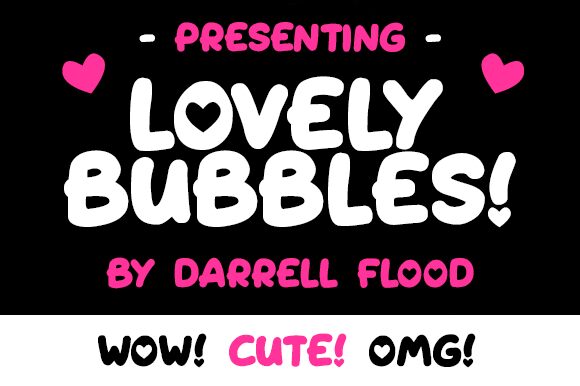
Lovely Bubbles Italic
Lovely Bubbles Italic is a bold, cartoon-style display font designed by Darrell Flood. With its fun and playful style, it's perfect for creating eye-catching designs in projects such as children's books, logos, and poster artwork.